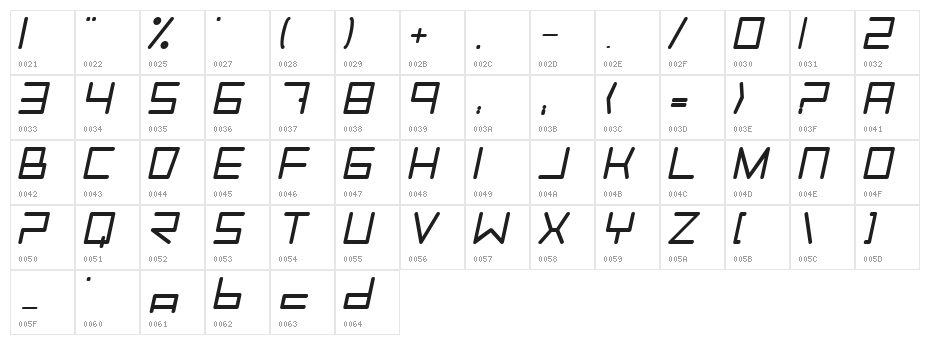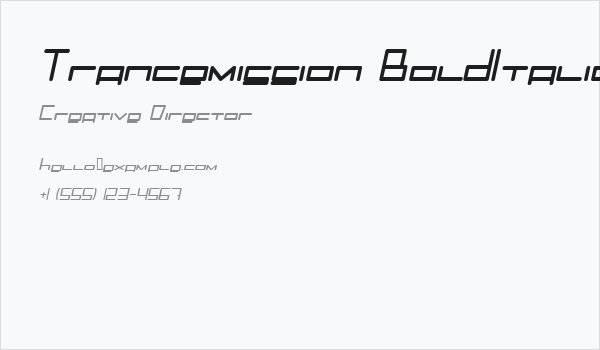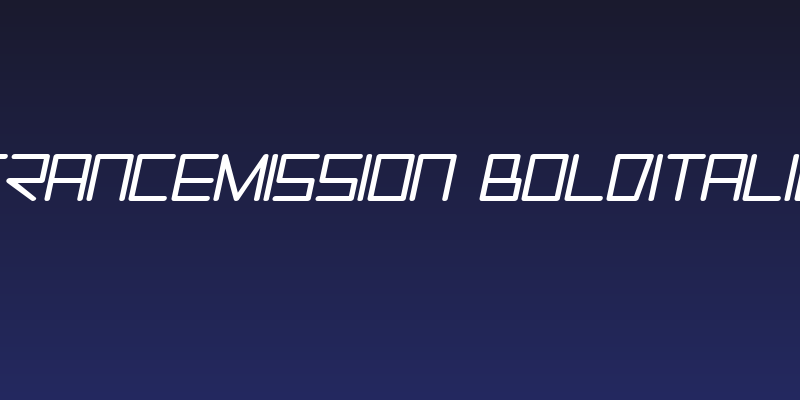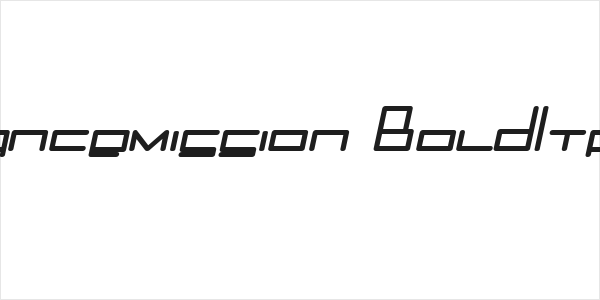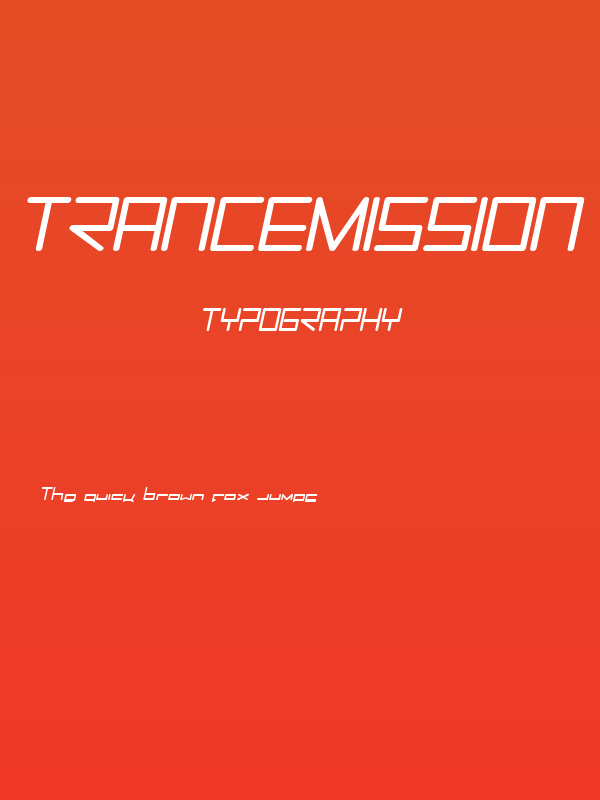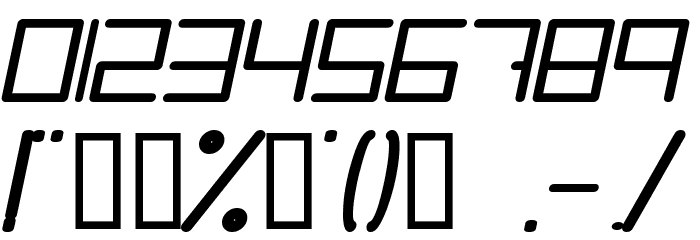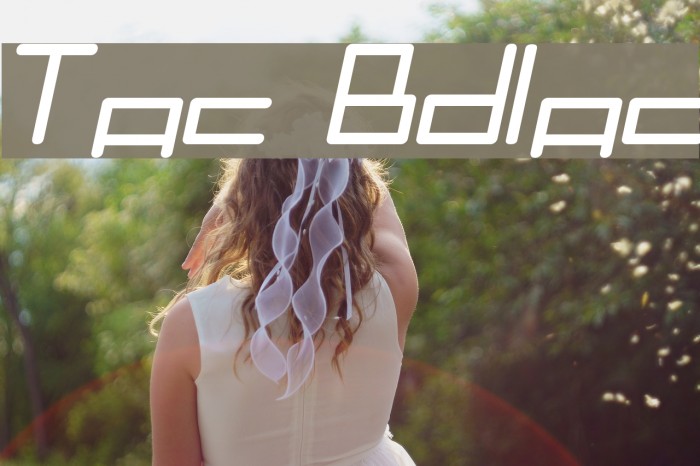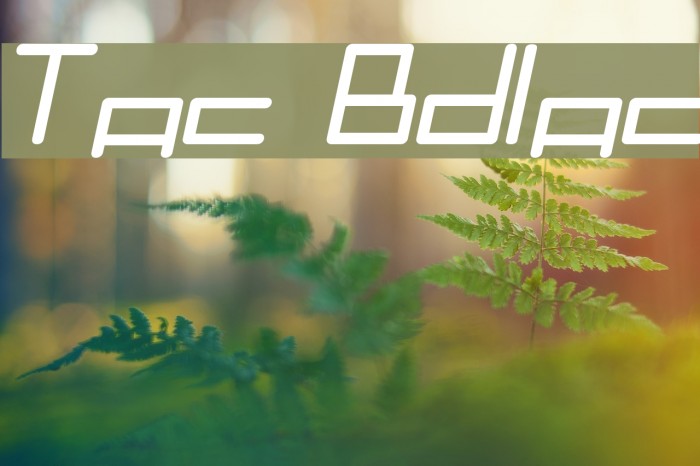
Trancemission BoldItalic Font
Trancemission BoldItalic Description
This font features a futuristic and sleek design with a geometric structure. The characters are elongated with a consistent slant, giving it a dynamic and forward-moving appearance. The strokes are uniform in thickness, creating a clean and modern look. The uppercase and lowercase letters maintain a cohesive style, with sharp angles and smooth curves. The numerals and special characters are designed to match the overall aesthetic, ensuring a seamless integration across different uses.
| Proposed Projects | Ideal for technology branding, sci-fi posters, video game titles, and modern advertising. |